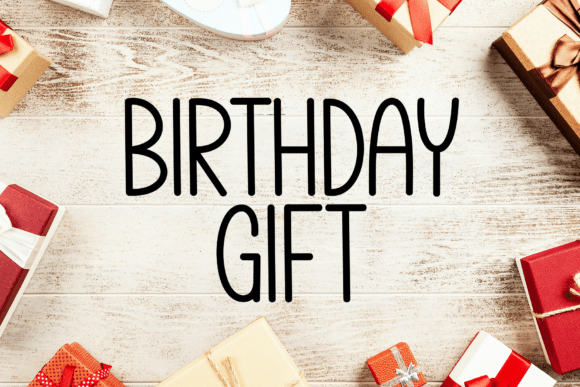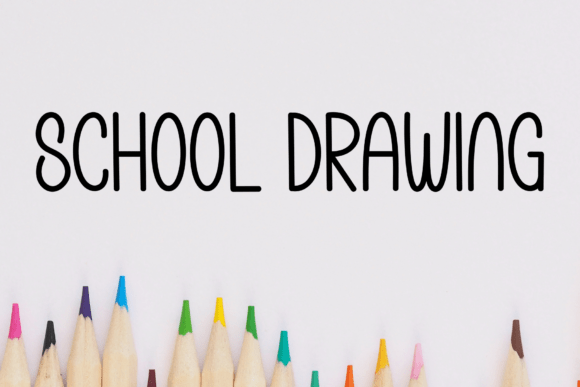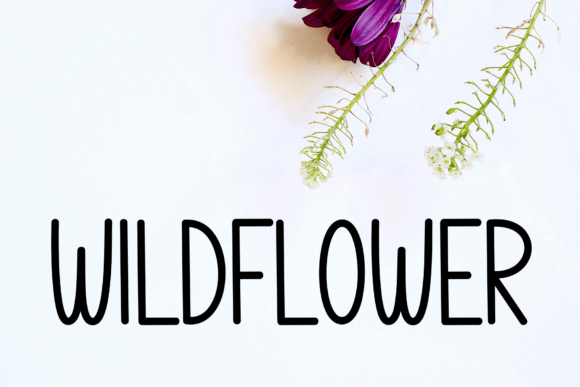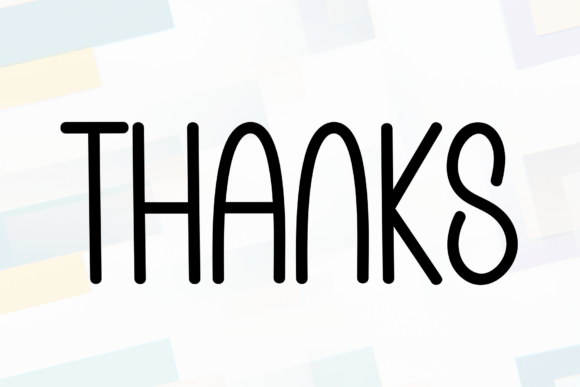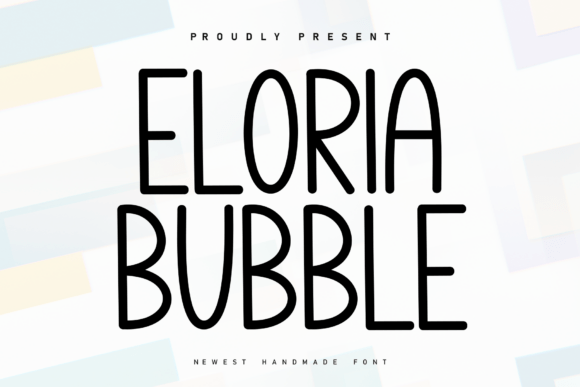
Introducing Eloria Bubble Font: Add a Touch of Whimsy to Your Designs
Are you a designer or crafter looking for a unique and beautiful font to add a personal touch to your projects? Look no further than Eloria Bubble Font! This sweet and beautiful handwritten font is perfect for creating cozy and inviting designs that will capture the hearts of your audience.
What Makes Eloria Bubble Font So Special?
Eloria Bubble Font features characters that dance along the baseline, giving it a playful and whimsical feel. This font is perfect for designers and crafters who want to add a touch of personality to their projects, whether it’s a logo, branding, social media graphics, or craft projects like papercrafting or scrapbooking.
Key Features of Eloria Bubble Font
- Handwritten with love: Eloria Bubble Font is a carefully crafted handwritten font that exudes warmth and personality.
- Dancing characters: The characters in Eloria Bubble Font dance along the baseline, giving it a playful and whimsical feel.
- Cozy and inviting: This font is perfect for creating designs that are cozy and inviting, making it ideal for projects that require a personal touch.
- Versatile: Eloria Bubble Font can be used for a wide range of design projects, from logos and branding to social media graphics and craft projects.
Use Cases for Eloria Bubble Font
Eloria Bubble Font is a versatile font that can be used for a wide range of design projects. Here are some use cases to get you started:
- Logo design: Use Eloria Bubble Font to create a unique and memorable logo for your brand or business.
- Social media graphics: Add a touch of personality to your social media graphics, such as Facebook posts, Instagram stories, and Twitter headers.
- Craft projects: Use Eloria Bubble Font to add a personal touch to your craft projects, such as papercrafting, scrapbooking, or card making.
- Branding: Use Eloria Bubble Font to create a consistent brand identity across all your marketing materials.
Tips for Using Eloria Bubble Font
Here are some tips for getting the most out of Eloria Bubble Font:
- Pair with contrasting fonts: Pair Eloria Bubble Font with contrasting fonts to create visual interest and hierarchy.
- Use for headlines and titles: Use Eloria Bubble Font for headlines and titles to add a touch of personality to your designs.